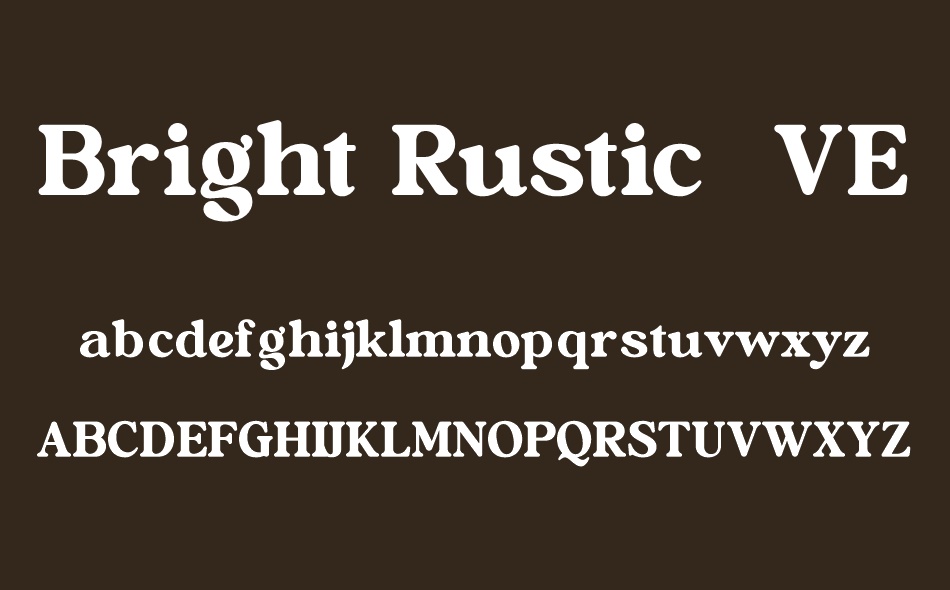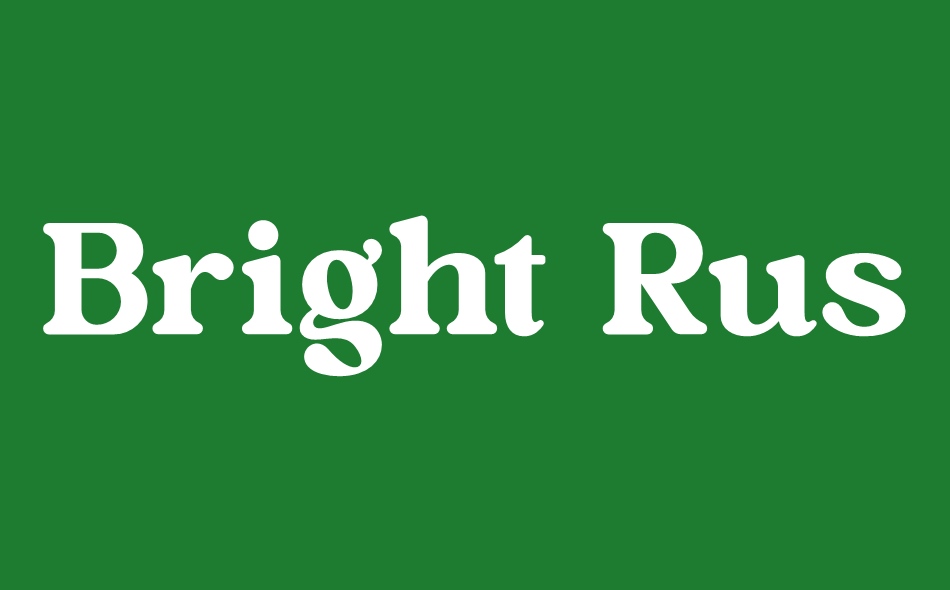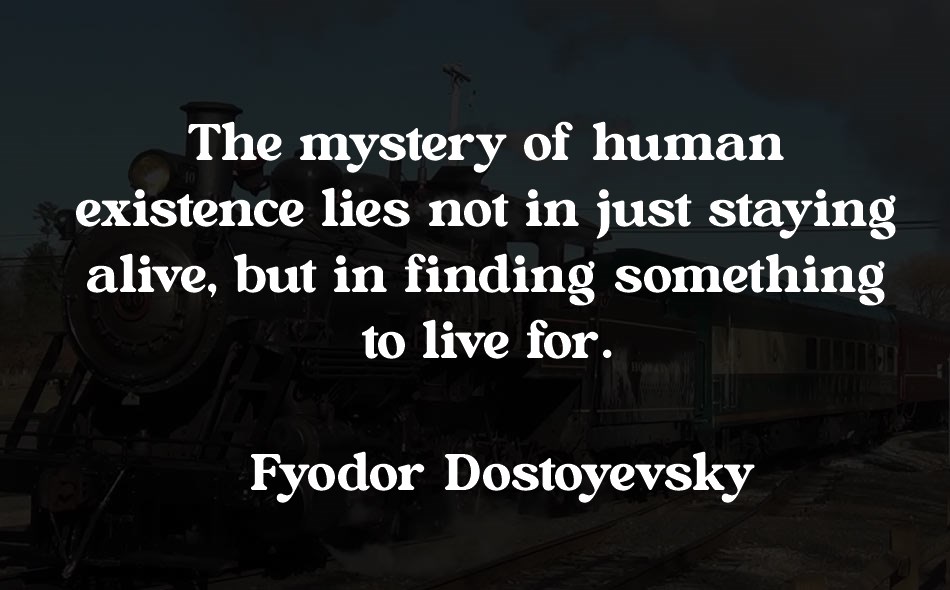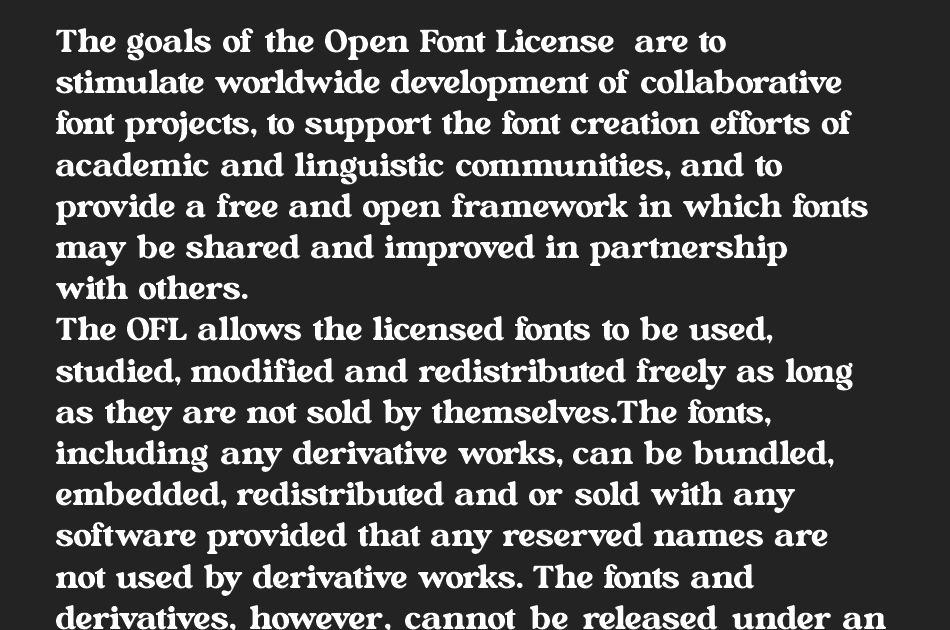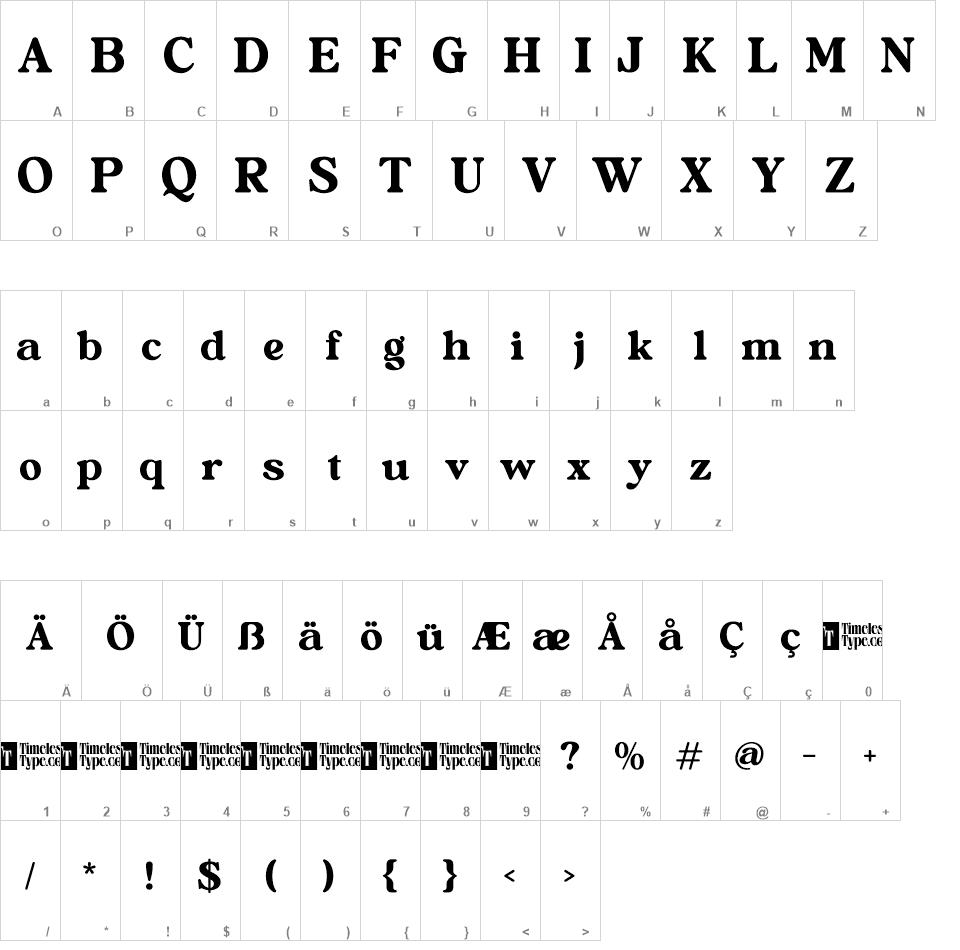
Bright Rustic font
Bright Rustic - Bold Serif Display Font
Discover a font that instantly commands attention and exudes sophisticated charm. Font Bright Rustic - Bold Serif Display Font is a captivating bold serif display typeface, crafted to bring refined elegance and robust character to your projects. Its substantial weight and graceful forms combine for a truly distinctive presence, ensuring your headlines and branding leave a lasting impression.
The true brilliance of Font Bright Rustic - Bold Serif Display Font lies in its exceptional detailing and boundless design versatility. Featuring striking high-contrast strokes and beautifully flowing curves, it balances boldness with an approachable aesthetic. Bolstered by 21 ligatures and 107 alternates, this font offers unparalleled customization, empowering designers to craft unique typographic compositions.
Transform your projects with the inherent prestige of this typeface. Font Bright Rustic - Bold Serif Display Font is an impeccable choice for premium applications: luxury branding, sophisticated packaging design, compelling editorial layouts, and distinctive logo design. Its perfect for creating memorable titles and upscale marketing materials, demanding an elevated visual statement with modern flair.
Embrace global appeal and professional adaptability with every character. With its extensive multilingual support, Font Bright Rustic - Bold Serif Display Font adapts seamlessly across global markets, making it incredibly versatile for international projects. Invest in this exceptional font to ensure your designs resonate worldwide, adding a layer of professional polish and timeless appeal to your essential design toolkit.